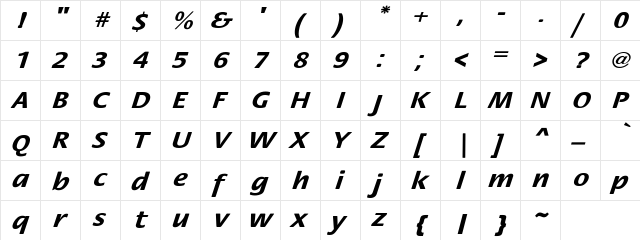
StackExtObl-Bol Regular
Design Context for StackExtObl-Bol Typeface
StackExtObl-Bol is a composed and adaptable typeface that performs quietly and consistently across a wide range of design contexts.